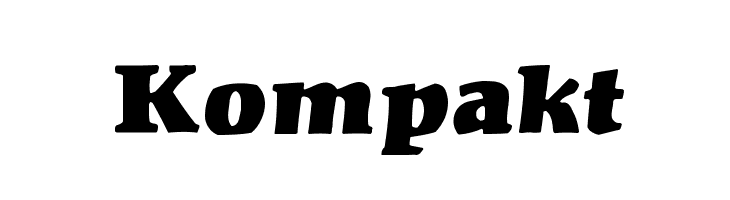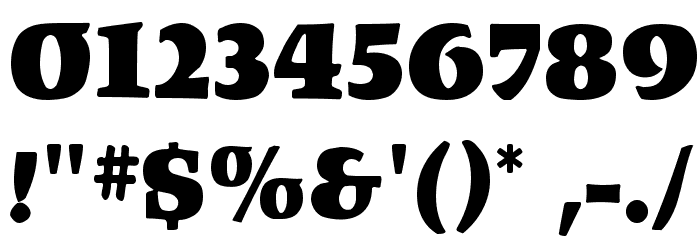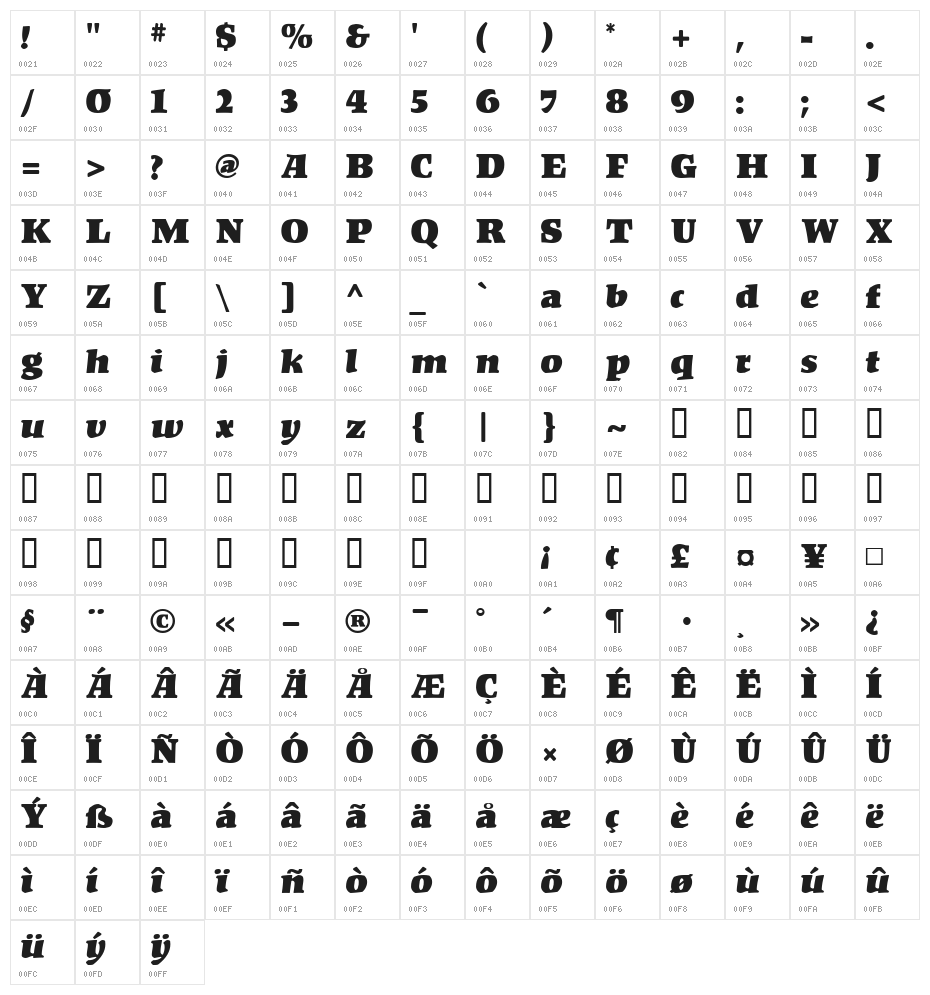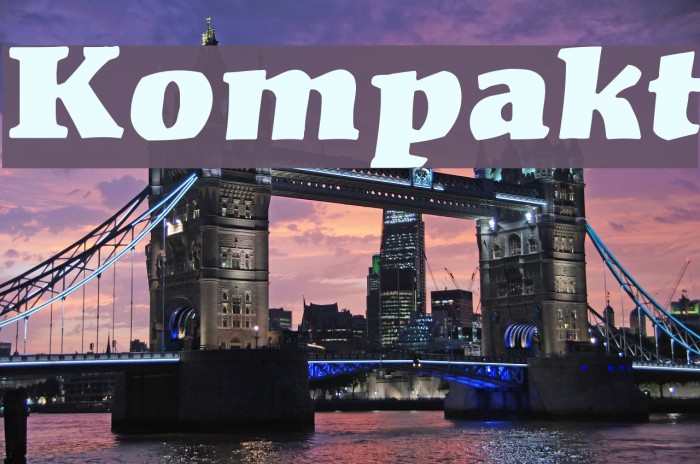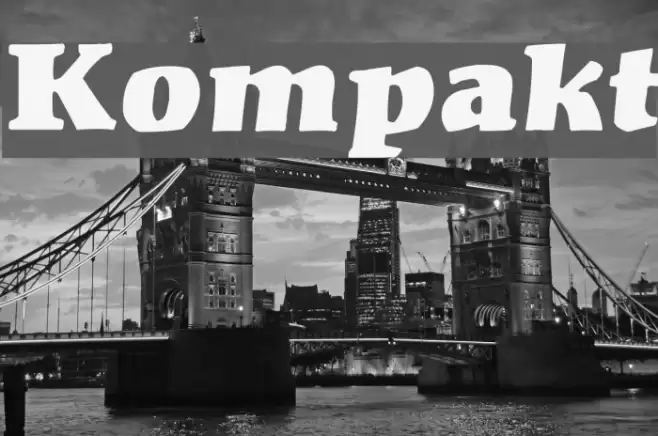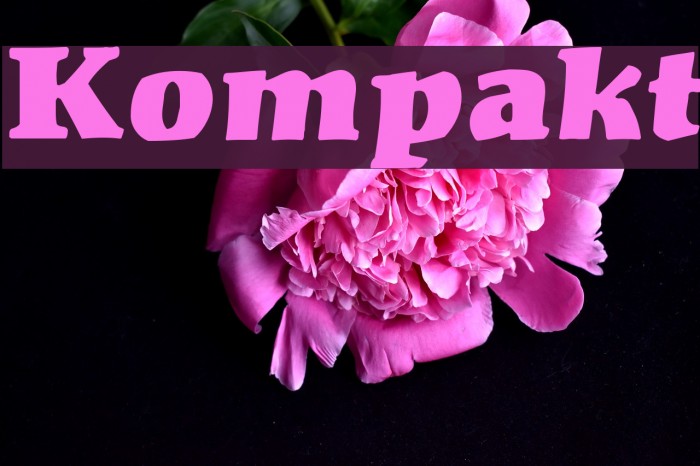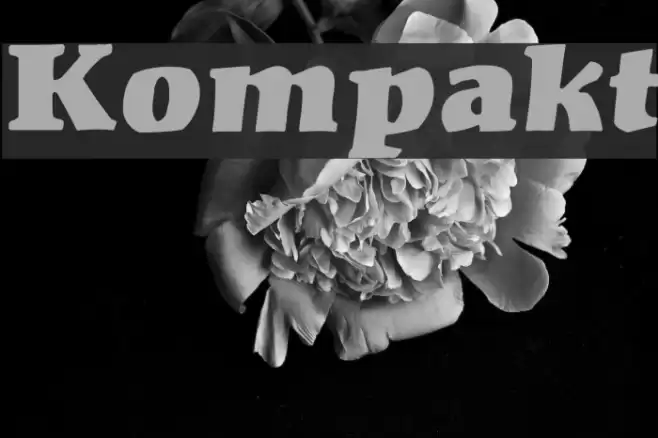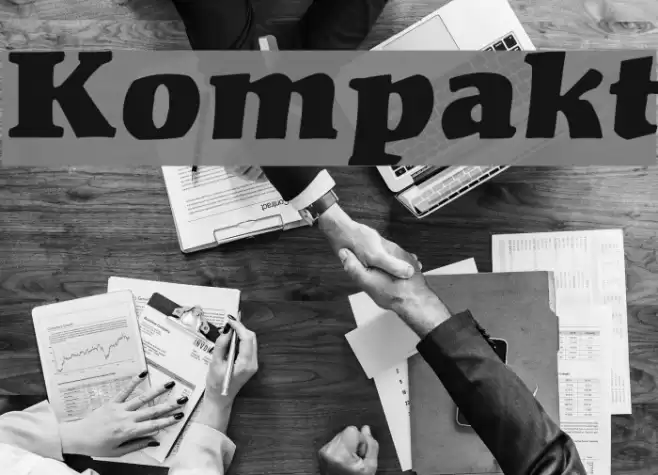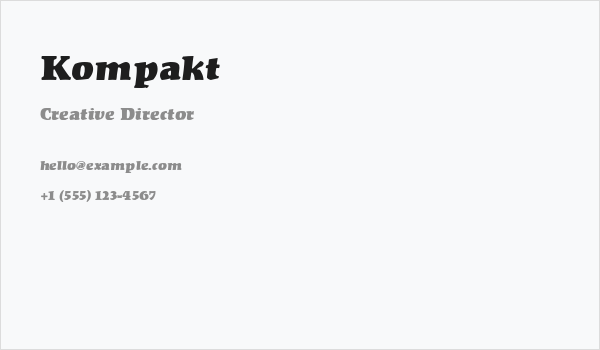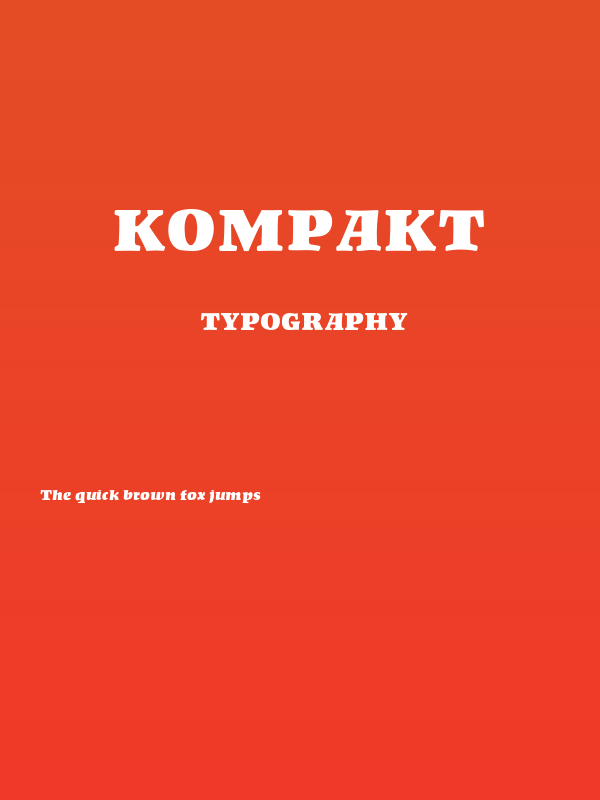
Kompakt Font
Kompakt Description
This font features bold, thick strokes with a strong presence, making it ideal for attention-grabbing headlines and impactful designs. The uppercase letters are robust and commanding, while the lowercase letters maintain a consistent weight, offering a harmonious balance. The numerals are equally bold, ensuring visibility and clarity. Special characters are designed with the same boldness, providing a cohesive look across all glyphs. The font's overall style is modern with a hint of vintage flair, suitable for projects that require a strong visual statement.
| Proposed Projects | Ideal for headlines, posters, branding, and any design needing a bold statement. |